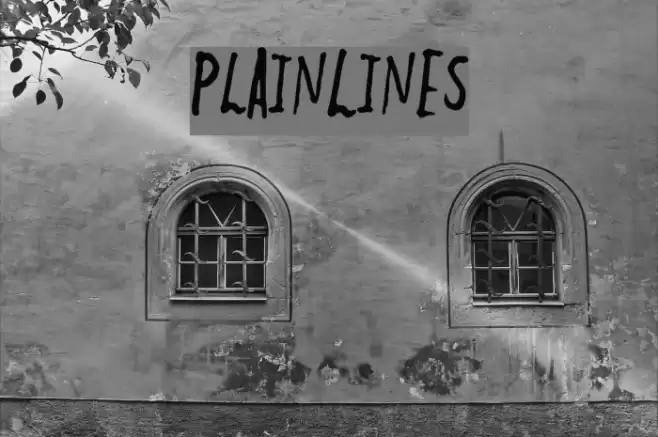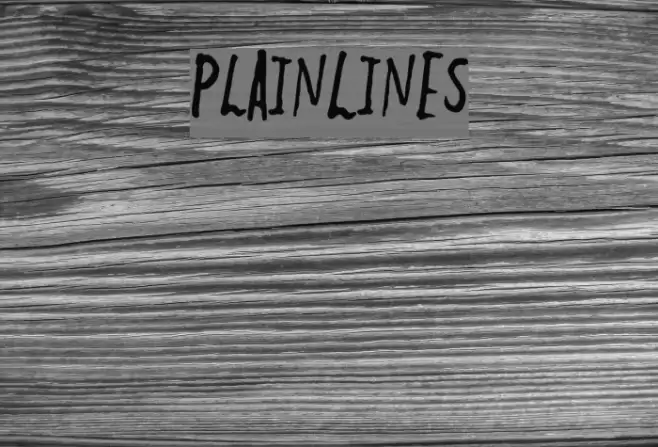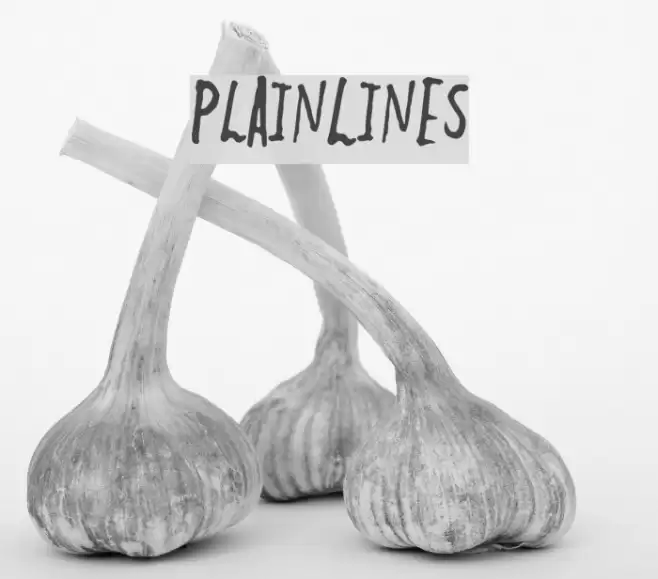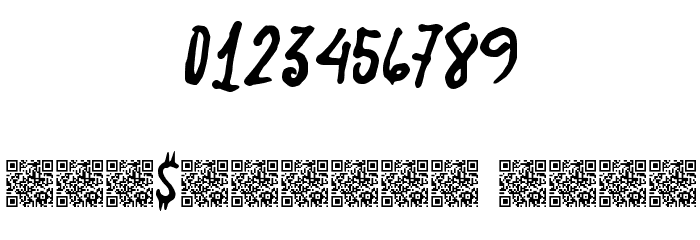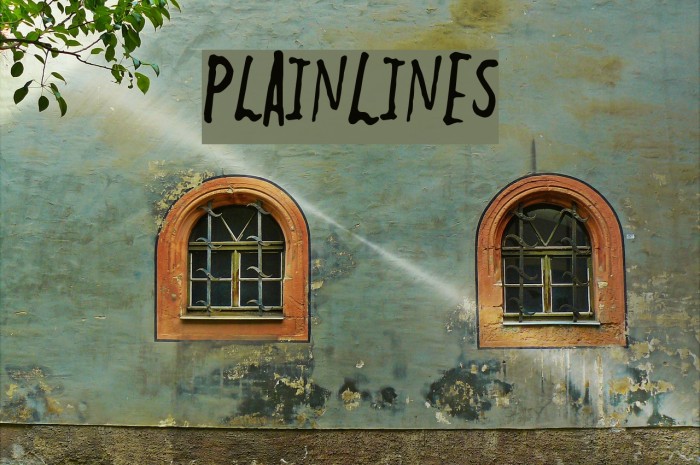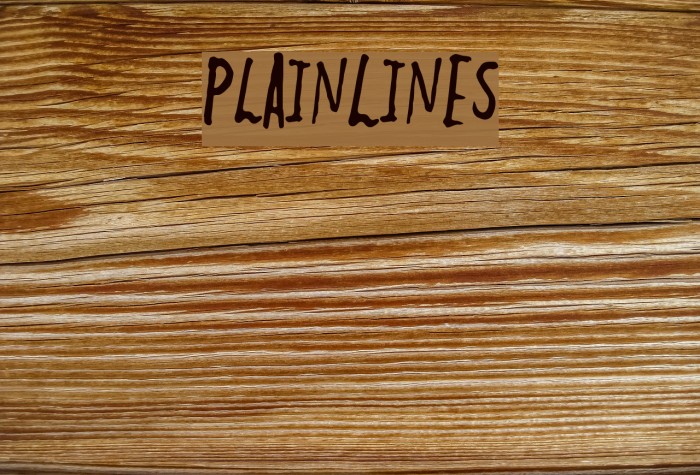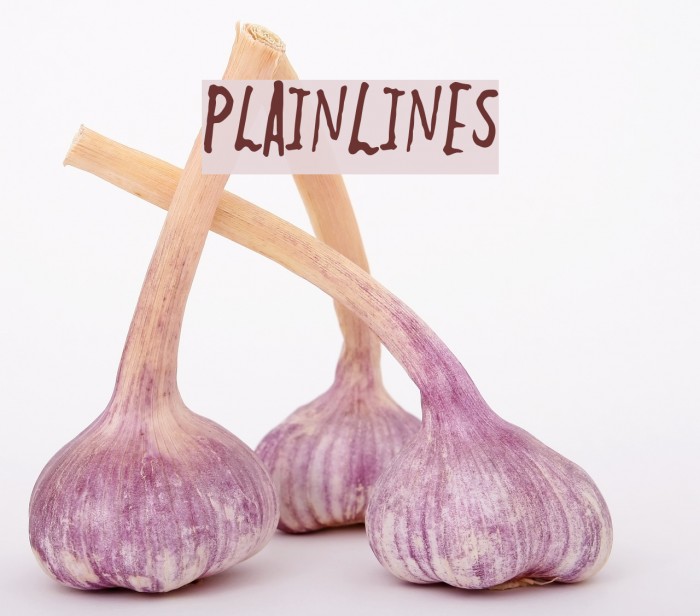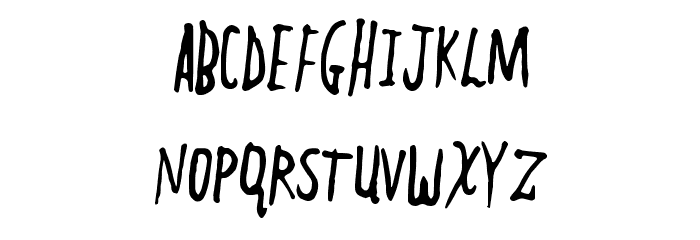
PlainLines Font
PlainLines Description
This font features a hand-drawn, organic style with a playful and casual appearance. The characters are slightly irregular, giving them a unique and artistic flair. The uppercase letters are bold and prominent, while the lowercase letters maintain a consistent style with a slightly narrower form. The numbers are distinct and easy to read, matching the overall aesthetic of the font. Special characters are included, maintaining the same hand-crafted look. This font is ideal for projects that require a personal touch or a creative, informal vibe.
A playful, hand-drawn font with an organic and artistic style from Handwritten fonts.
- Proposed Projects: Ideal for greeting cards, posters, children's books, and creative branding projects.